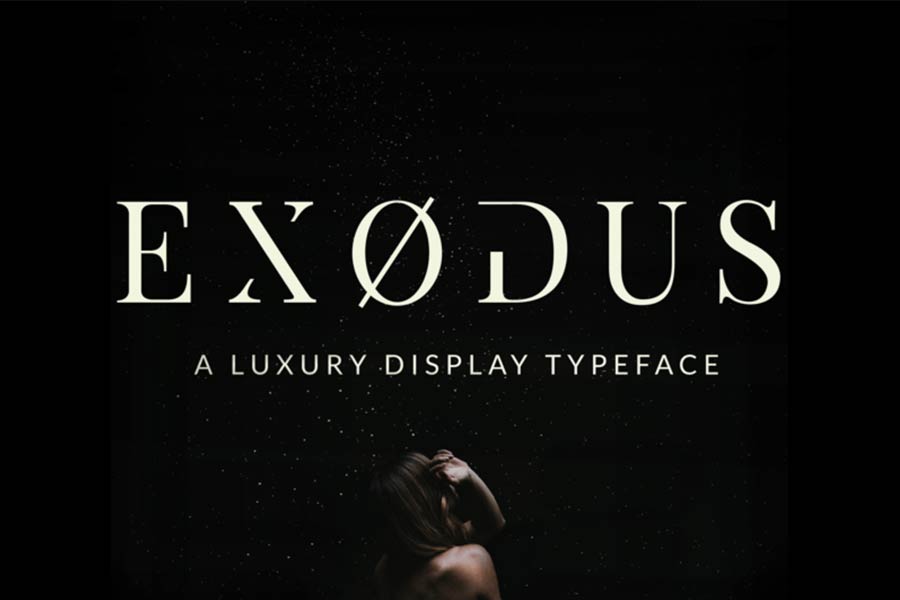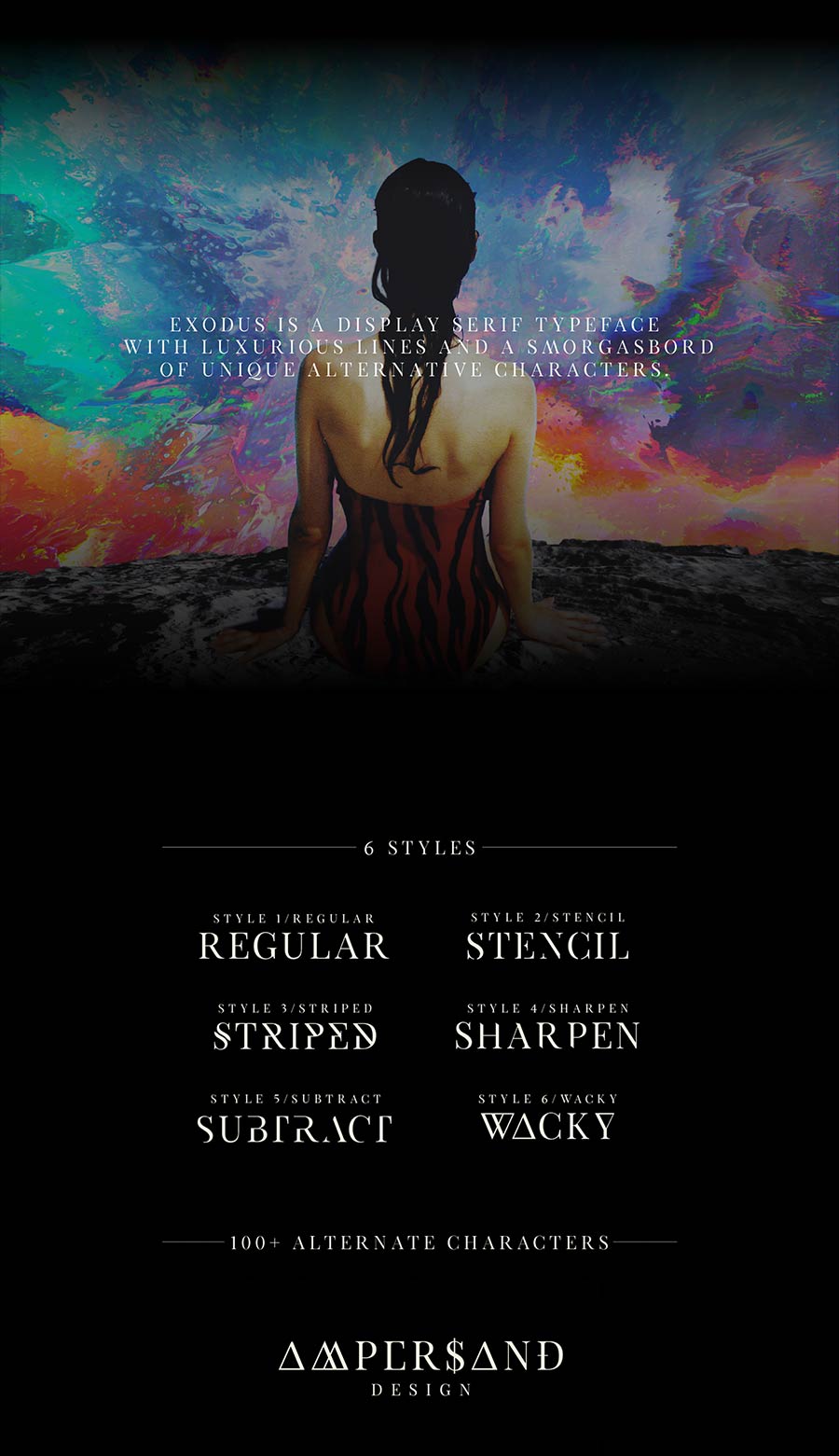
Exodus is a display serif that you can download for free for your next personal projects. The full family comes with six distinctive styles, while the free version comes with four. It works great on big size headlines and text, its stylish and mysterious characteristics will give a deeper meaning to your design.
- Designer: Andrew Herndon
- Styles: 4
- Category: Display, Serif